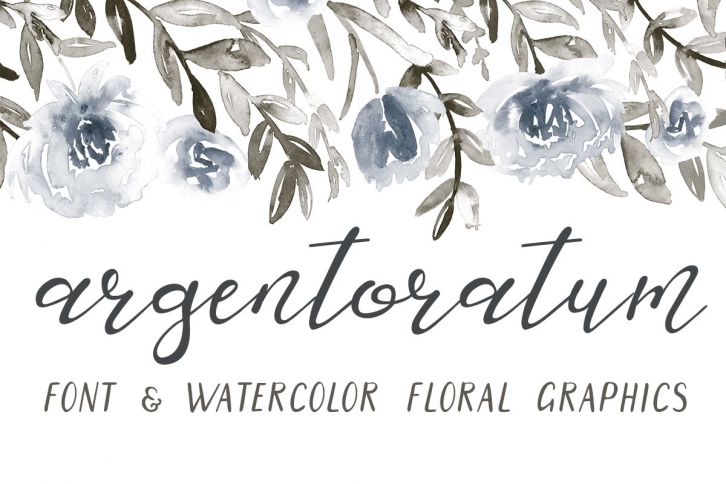
Introducing Argentoratum, a versatile duo-like modern calligraphy font.
A pairing of bouncy script lowercase and slanted sans serif uppercase characters, Argentoratum works as a gentle and humorous lettering style combo. The typeface suits best for whimsical stationery layouts, playful wedding suites and diy inspired brand identity.
- full set of uppercase and lowercase characters;
- numbers, punctuation and special characters;
- standard ligatures;
- multilingual support for Western, Central and Southeastern Europe.